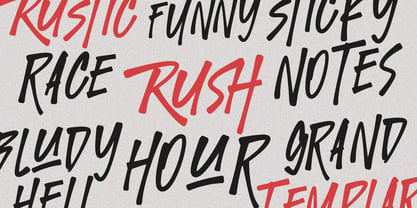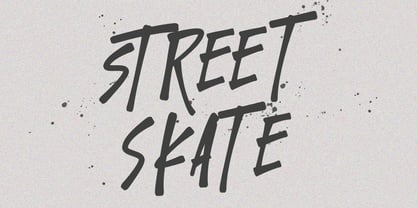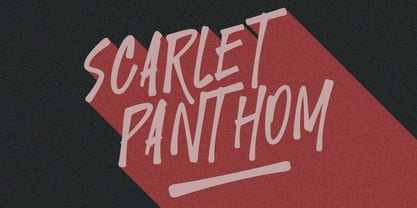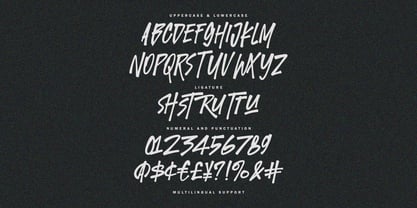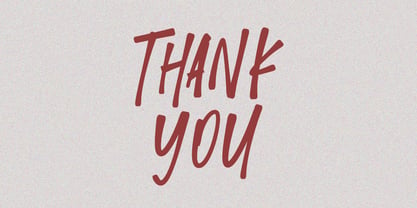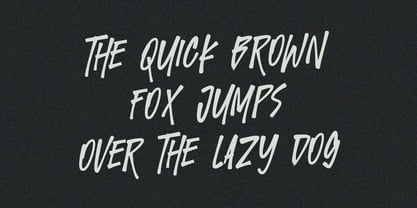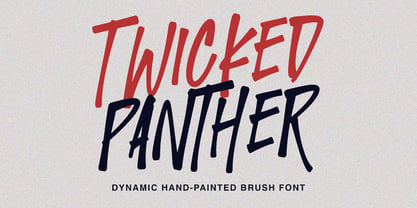
MC Twicked Panther
by Maulana Creative
The MC Twicked Panther Font Family was designed by Gilang Maulana and published by Maulana Creative. MC Twicked Panther contains 1 styles. More about this family
Introducing Twicked Panther, a dynamic, hand-painted brush font designed to make an instant and unforgettable statement. This font perfectly captures the raw energy of urban street art and the cool, effortless vibe of a rebellious spirit. Why Twicked Panther will elevate your design: - Electrifying Style: Its rough, textured strokes and slightly aggressive slant give it a high-octane feel, perfect for projects that demand attention. - Versatile Impact: Whether you're designing merchandise, album covers, gaming logos, powerful branding, or social media graphics, Twicked Panther cuts through the noise. - Optimal Readability: Despite its artistic texture, the clear, strong letterforms ensure your message is communicated clearly and effectively. - Dual-Tone Appeal: As showcased in the preview, it works brilliantly in vibrant dual-color schemes, allowing you to highlight key words and add a layer of sophistication to its raw energy. - Features: Uppercase & Lowercase, Numerals & Punctuation, Ligatures for a more natural flow, and Multilingual Support. Grab Twicked Panther today and inject a dose of rebellious confidence into your next creative project!
Designers: Gilang Maulana
Foundry: Maulana Creative